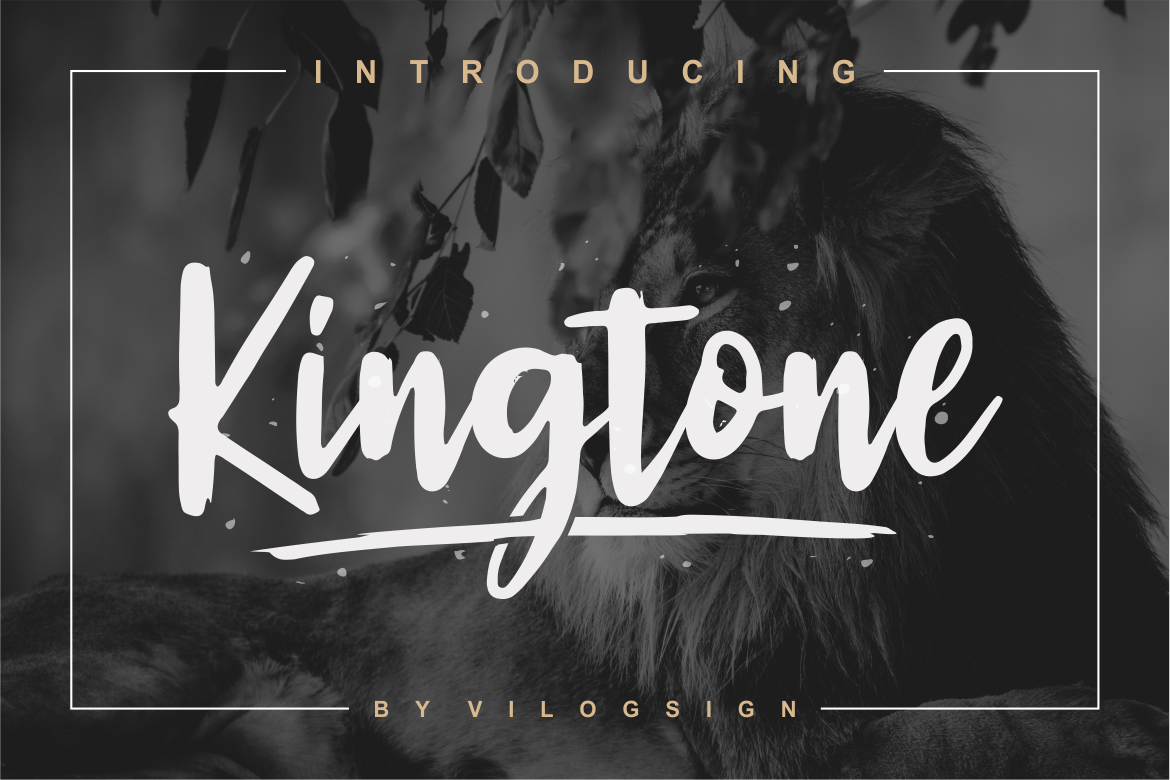
Kingtone // Handcrafted Script Font
Introducing new "Kingtone" script font.
With a rough font display, this font is very unique and has character.
Very suitable for those of you who need this font to create logos, t-shirts, branding, magazines, posters, quotes, and other.
- ligature